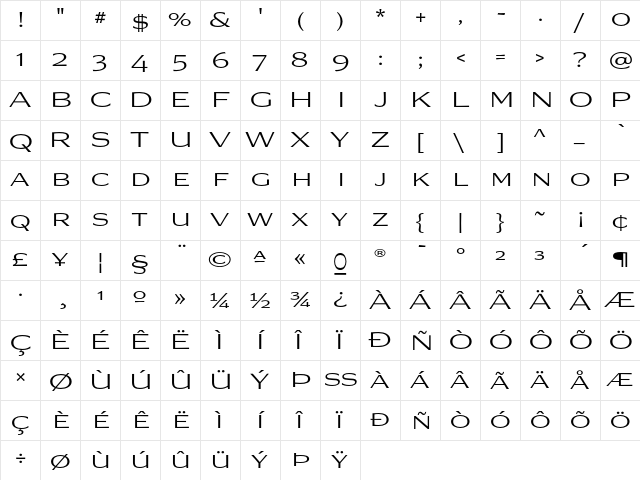
Luxury Platinum
| Foundry | House Industries |
| Designer | Christian Schwartz & Dino Sanchez |
Design Context for Luxury Typeface
Luxury takes a measured approach to typography — its balanced proportions and neutral character make it a reliable workhorse for both digital and print work.